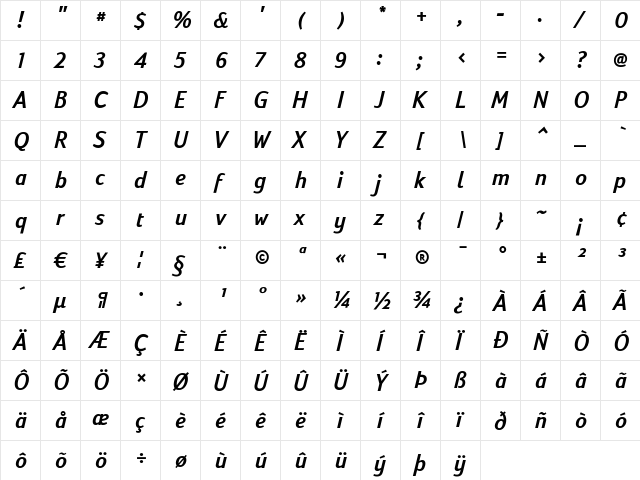
Fargo Bd DaMa Italic
| Foundry | Dalton Maag Ltd. |
| Designer | Dalton Maag Ltd. |
Design Context for Fargo Bd DaMa Typeface
Fargo Bd DaMa takes a measured approach to typography — its balanced proportions and neutral character make it a reliable workhorse for both digital and print work. The slanted form adds forward momentum and visual energy. Its bold stroke weight gives it real presence on the page.
Pro Tip: Use Fargo Bd DaMa for emphasis, pull quotes, and subheadings where its slanted energy can add rhythm to the layout.